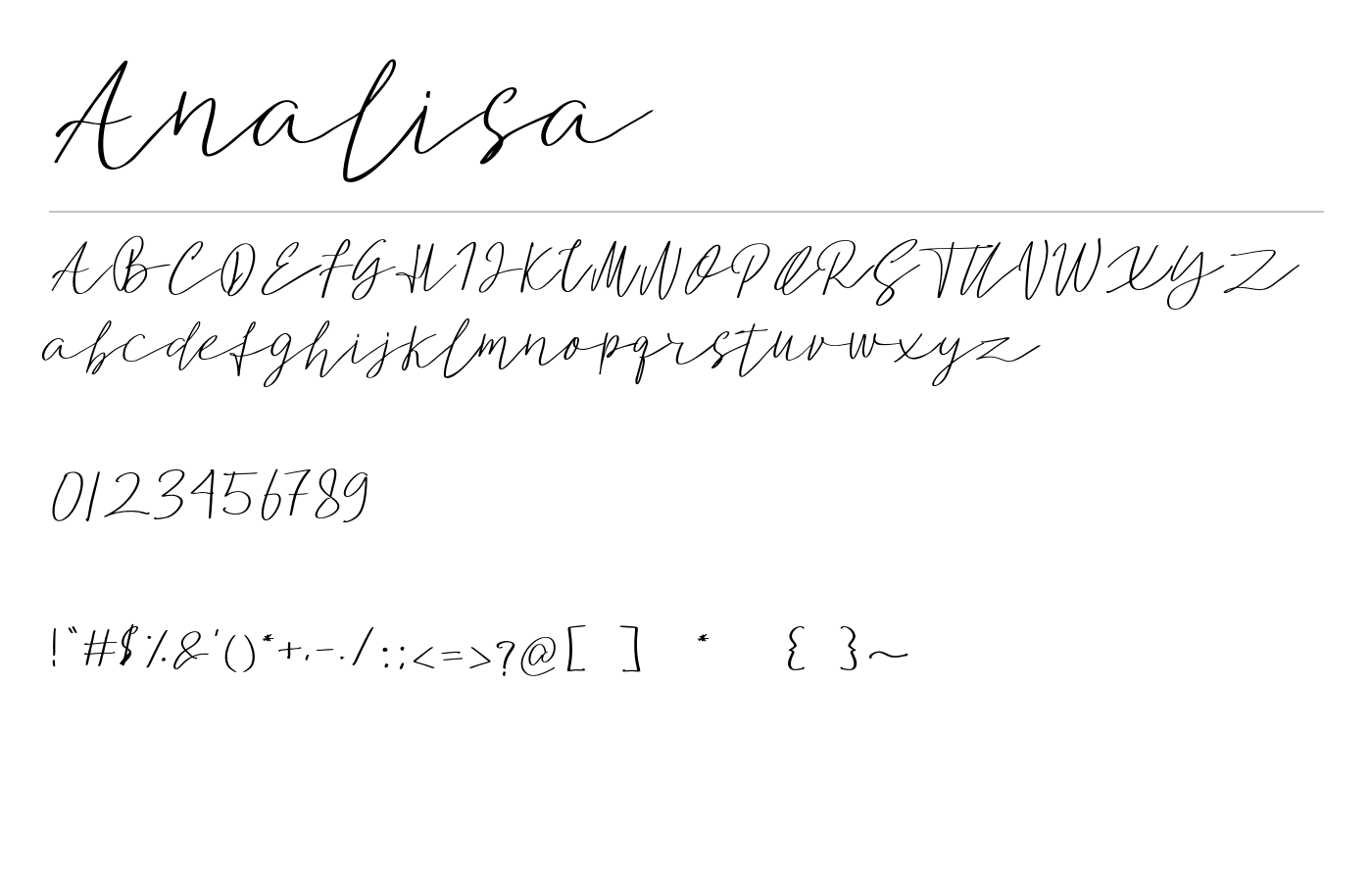
Analisa is a delicate and elegant handwritten script font featuring thin, flowing strokes with a natural, casual flair. Its tall, slender letterforms offer a graceful and airy feel, making it perfect for stylish branding, wedding invitations, and feminine editorial designs. This font’s light, refined appearance lends a personal and sophisticated touch to creative projects seeking a modern yet intimate look.
Analisa Font
About Analisa Font